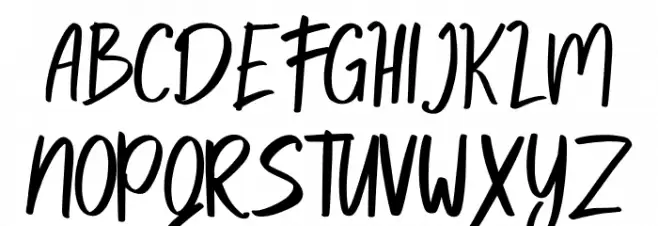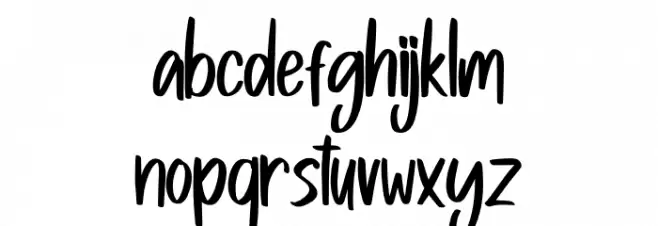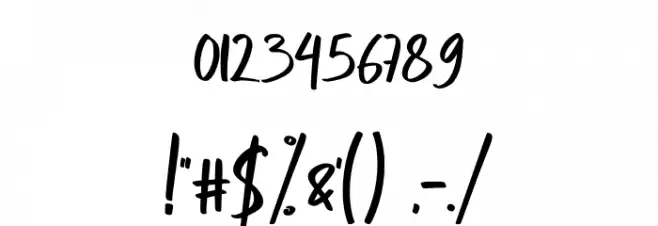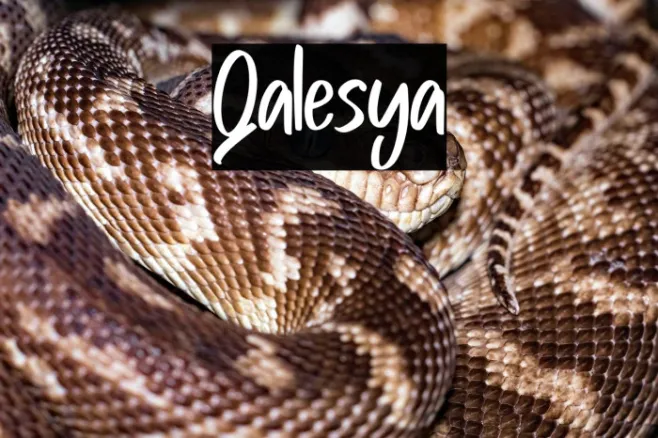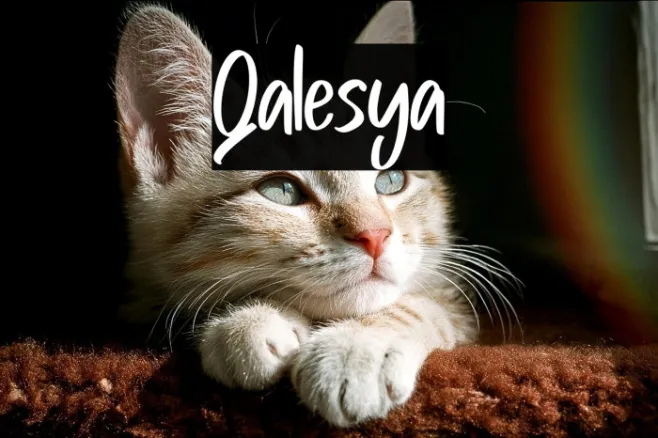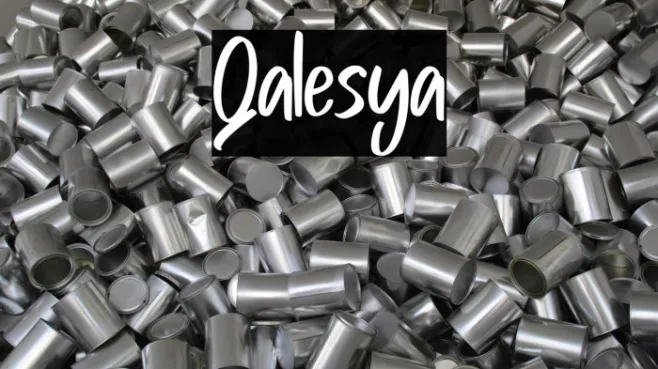
Qalesya
This font features a playful and energetic handwritten style, characterized by its bold and slightly irregular strokes. The letters have a casual and informal appearance, with a dynamic flow that gives a sense of movement. The uppercase and lowercase letters maintain a consistent style, with some variations in stroke thickness that add to its charm. The numbers and special characters are equally expressive, making them suitable for creative and artistic projects. The overall look is modern and engaging, perfect for capturing attention in a variety of contexts.
A bold, playful handwritten font with dynamic strokes and a modern feel.
- Proposed Projects: Ideal for greeting cards, posters, branding, social media graphics, and creative invitations.
- Overall Style: Modern, Decorative
- Use Case: Headlines, Logos, Creative projects